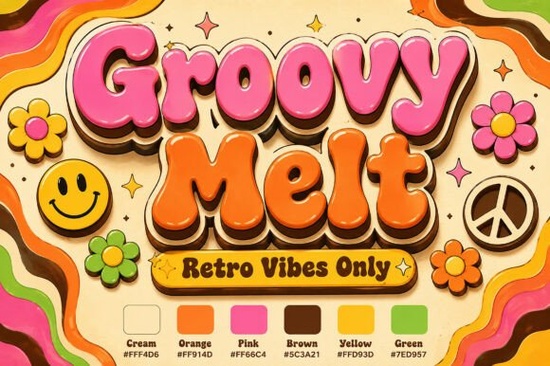
If you’ve been hunting for a display font that truly captures the spirit of the 1970s complete with swirling energy, playful curves, and that unmistakable retro vibe you’ll want to take a close look at Groovy Melt Font. It’s not just another script font; it’s a full-on visual experience built for designers who love bold, nostalgic aesthetics. With its plump, melting letterforms and rich color contrasts, Groovy Melt brings a tactile, almost liquid feel to headlines, logos, and promotional graphics.
What makes this font stand out is how authentically it channels mid-century psychedelic design without feeling like a cheap imitation. The characters appear to drip softly along a wavy baseline, accented by glossy highlights and deep drop shadows that give them dimension. Whether you’re designing a vintage music festival poster or branding a line of boho-inspired apparel, Groovy Melt adds instant character and a touch of whimsy that’s hard to replicate with standard typefaces.
Who is Groovy Melt best suited for?
This font shines in projects where personality matters more than readability at small sizes. Think:
- Print-on-demand sellers creating t-shirts, mugs, or stickers with retro flair
- Small lifestyle brands launching product lines inspired by the '60s and '70s
- Event designers crafting posters for themed parties or music festivals
- Crafters and hobbyists making custom wall art, greeting cards, or digital scrapbook elements
It’s worth noting that Groovy Melt is a display font meaning it’s intended for short phrases, titles, or logos rather than body text. But within that role, it delivers remarkable consistency and charm.
How does it compare to other retro display fonts?
While many retro fonts lean into blocky or geometric styles (like Brick Stacked, which offers a more structured, modular look), Groovy Melt embraces fluidity. Its organic, almost hand-melted appearance sets it apart from cleaner scripts like Hello Angela, which favors elegance over exuberance. If you’re drawn to softer, nature-inspired shapes, you might also enjoy Bloomsy for floral-themed projects but Groovy Melt remains unmatched when it comes to capturing that sun-drenched, psychedelic energy.
For those exploring coastal or beachy aesthetics, Coastal Delight offers breezy, relaxed letterforms, while Picky Retro leans into diner-style signage with sharp edges and condensed spacing. Groovy Melt doesn’t fit neatly into either camp it’s all about movement, warmth, and a little bit of controlled chaos.
Tips for using Groovy Melt effectively
Because of its high-contrast styling and dimensional effects, Groovy Melt works best when given room to breathe. Avoid overcrowding it with other decorative elements. Instead, pair it with simple sans-serif fonts for supporting text, or let it stand alone as a focal point.
Color choice matters too. While the default palette features bubblegum pink, retro orange, and chocolate brown shadows, you can customize these in vector editors if you're working with the OTF or SVG versions. Just keep the contrast strong enough to maintain those liquid highlights they’re key to the font’s illusion of depth.
Also, consider your output format. For print projects like stickers or apparel, ensure your file resolution supports the fine details in the shadows and glosses. In digital use (social media graphics, web banners), test legibility at various sizes those melting curves can blur if scaled too small.
Groovy Melt is available through Creative Fabrica, often bundled with commercial-use licensing, making it ideal for small businesses and creators selling physical or digital goods. You’ll typically get multiple file formats (OTF, TTF, sometimes SVG or EPS), so check the product page for specifics based on your software needs.
Before you commit, browse similar styles to confirm it matches your vision. Fonts like Groovy Melt Font are highly distinctive perfect if that’s exactly the mood you’re after, but possibly overwhelming if you need something more neutral.
Quick checklist before using Groovy Melt:
- ✅ Confirm your project calls for a bold, retro display font not body text
- ✅ Pair it with minimal, clean supporting typography
- ✅ Use high-resolution exports to preserve shadow and highlight details
- ✅ Test mockups in real-world contexts (e.g., on a t-shirt template or poster layout)
If your creative work leans into nostalgia, joy, and expressive design, Groovy Melt could be the missing piece that ties your aesthetic together with authenticity, not cliché.